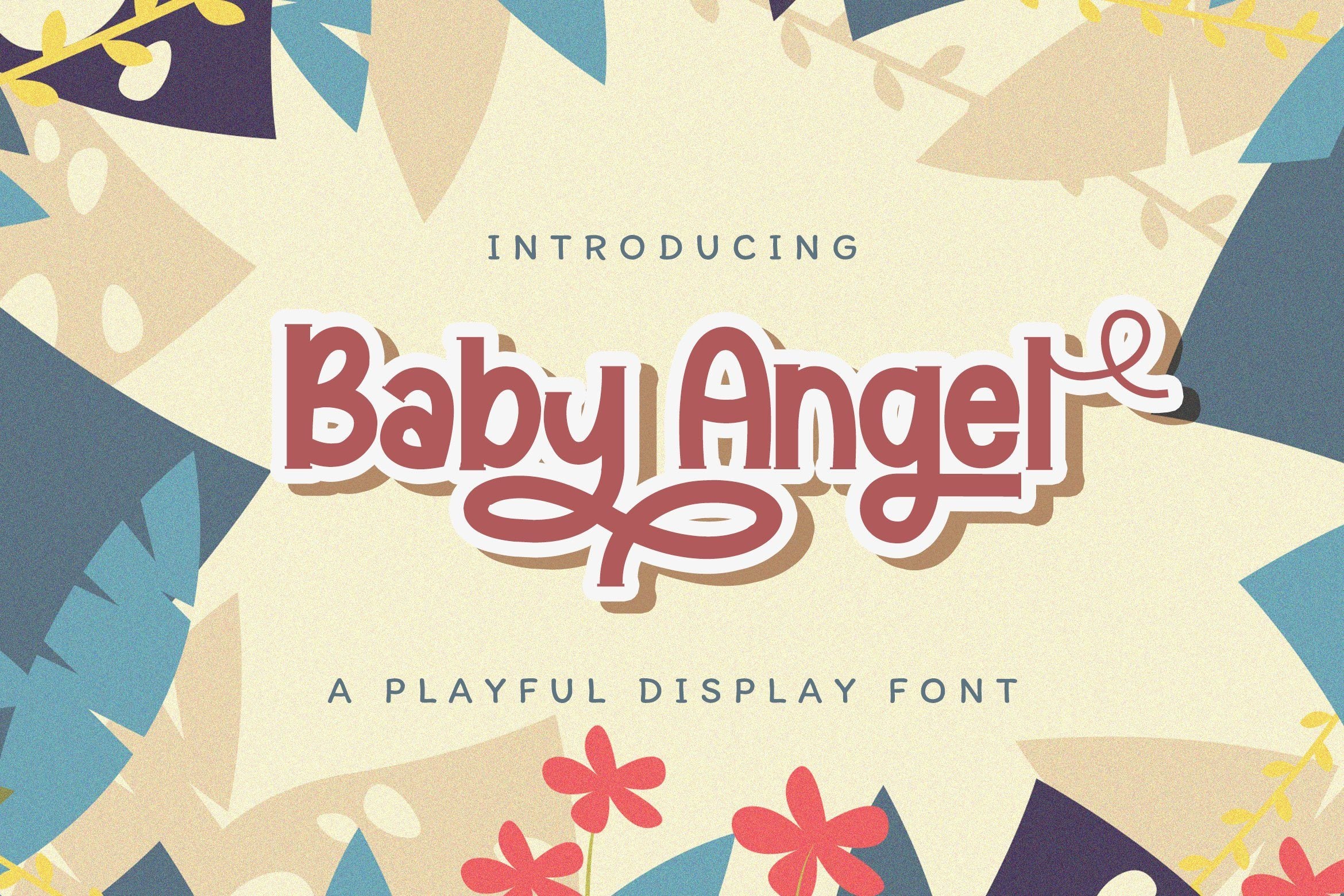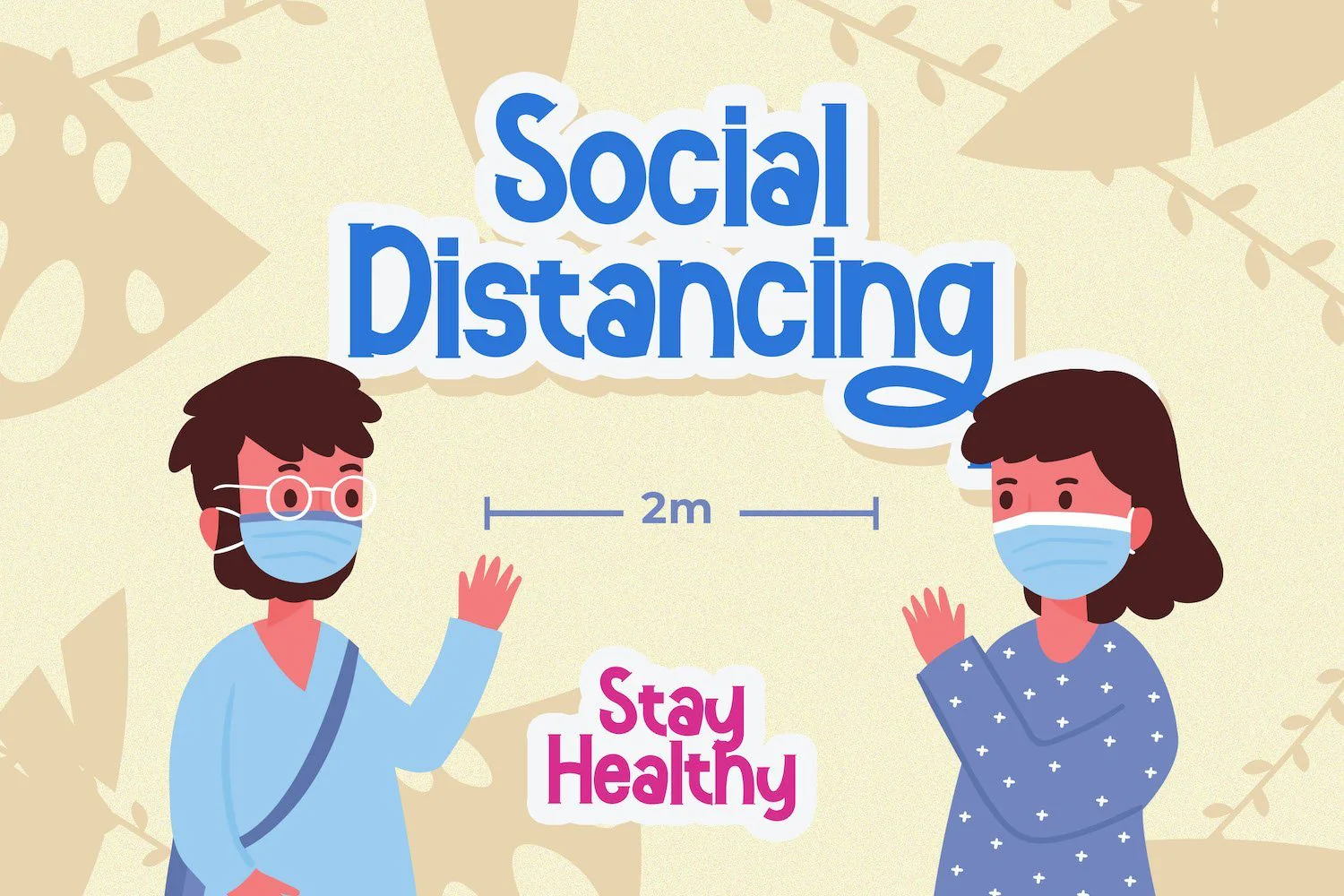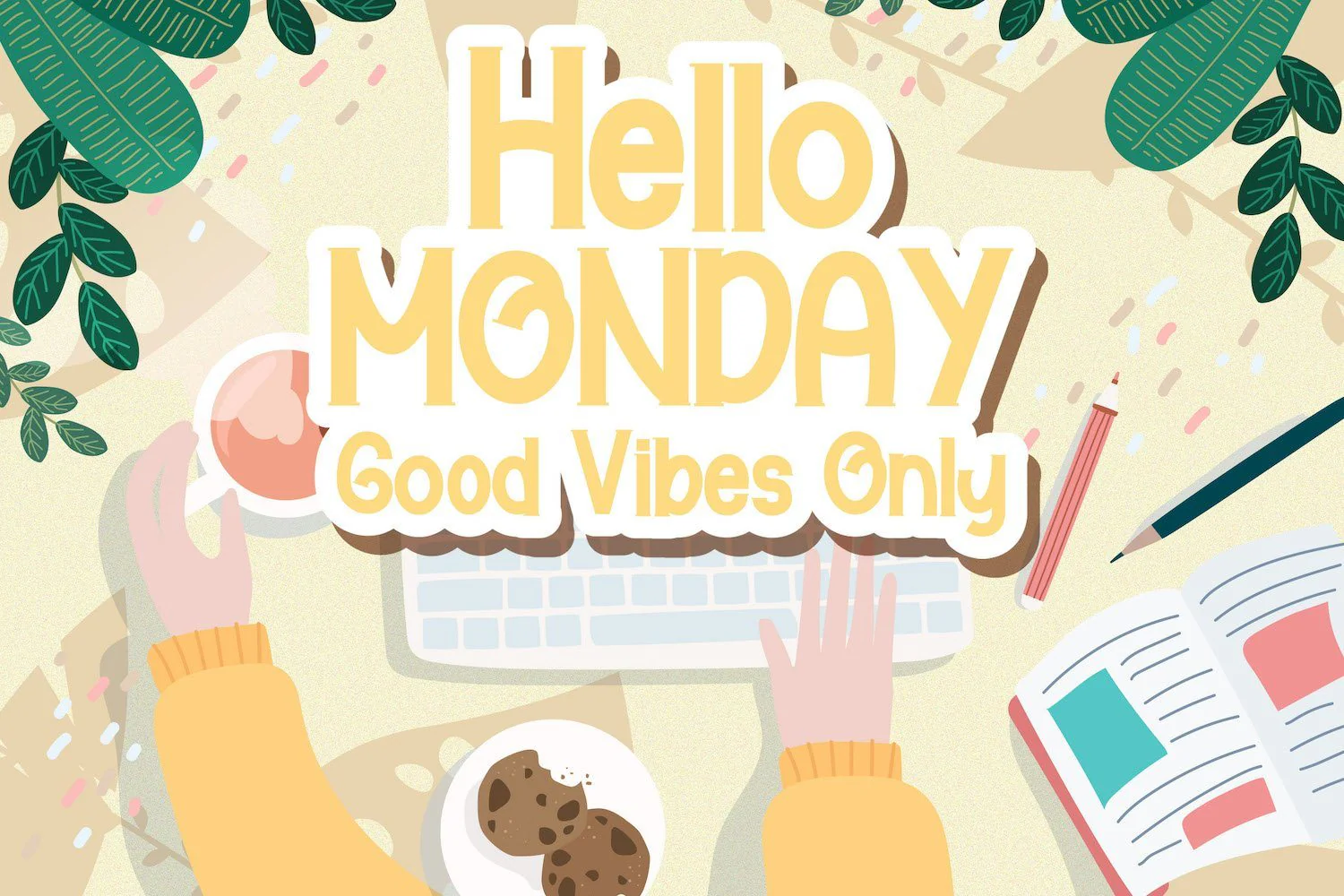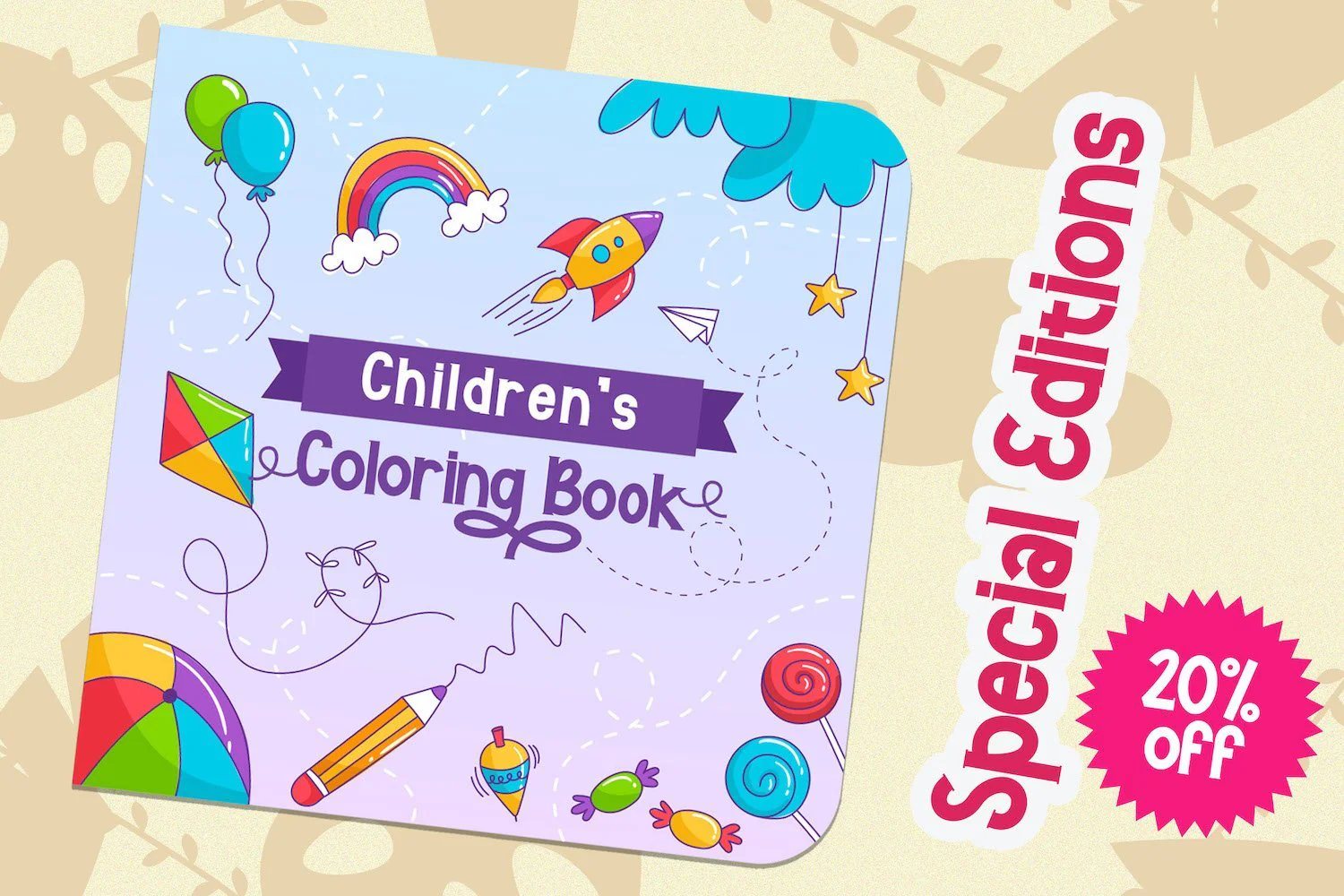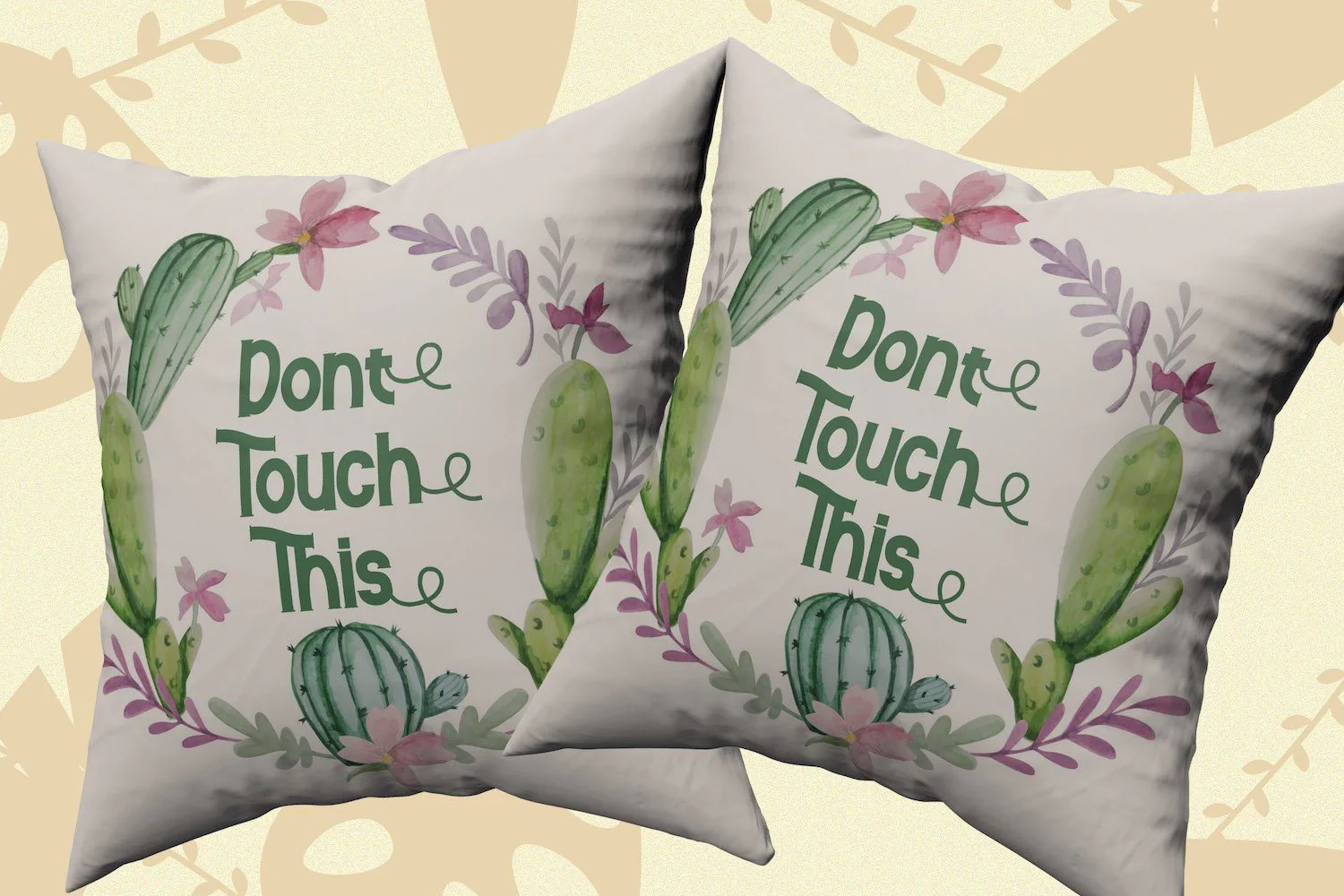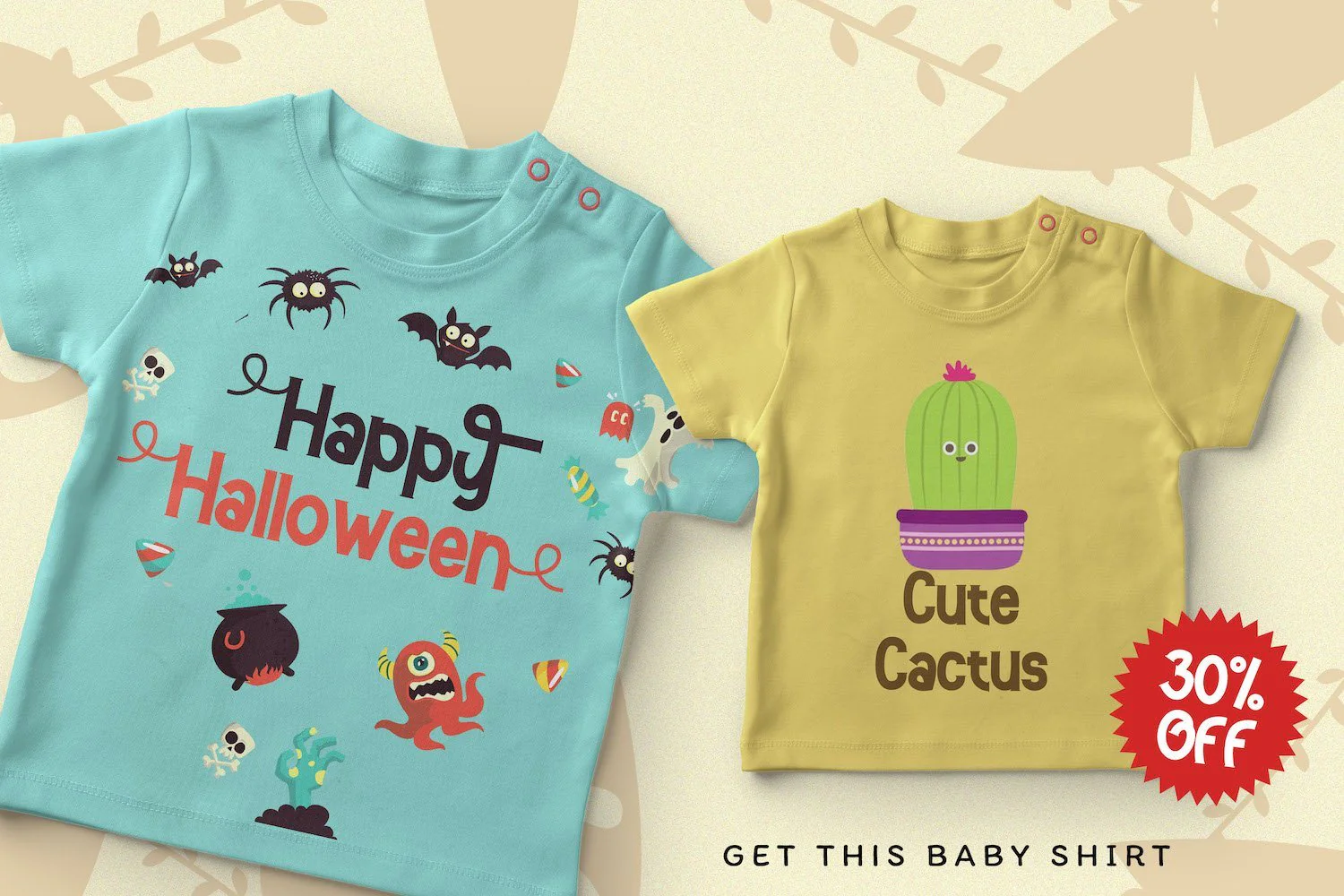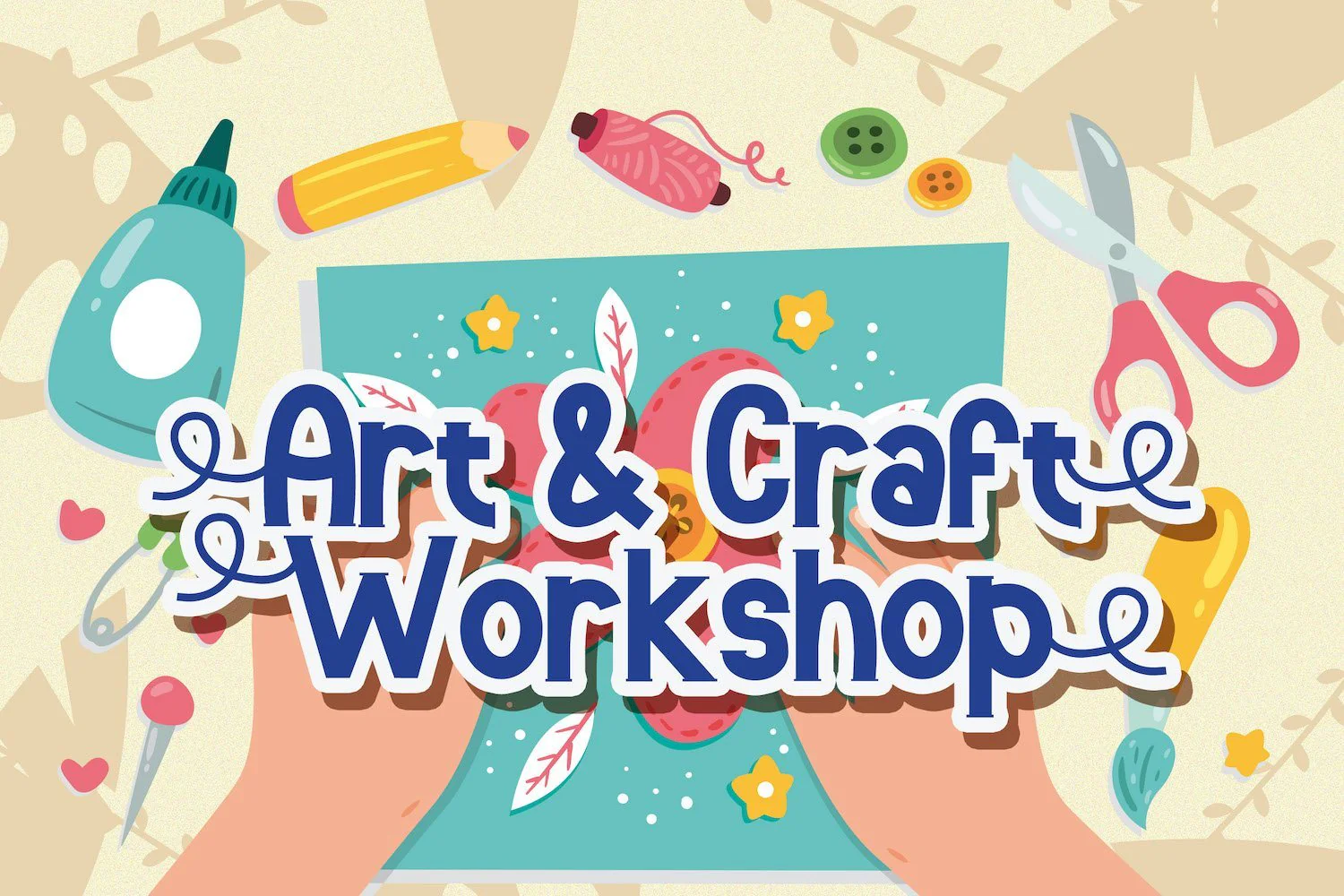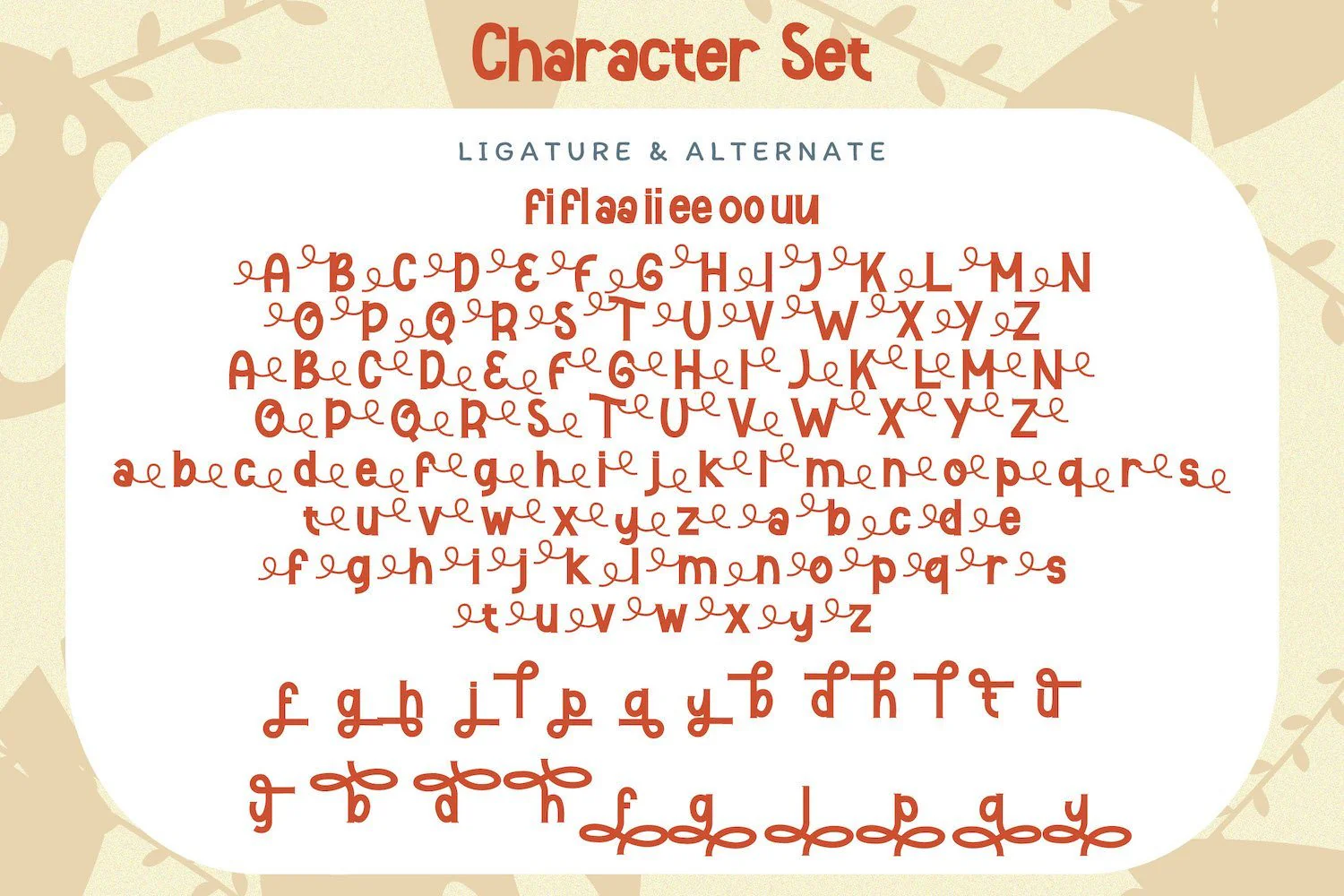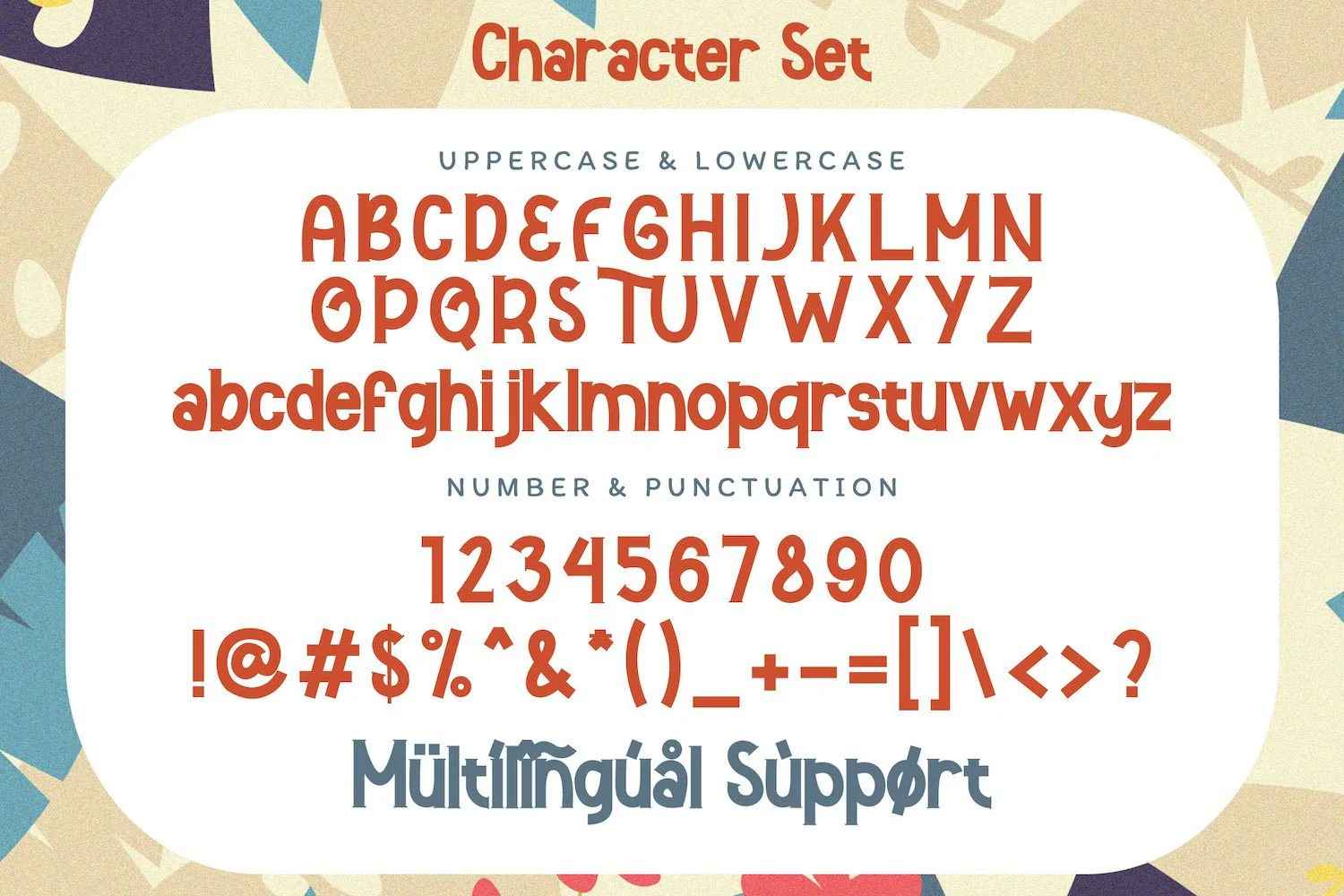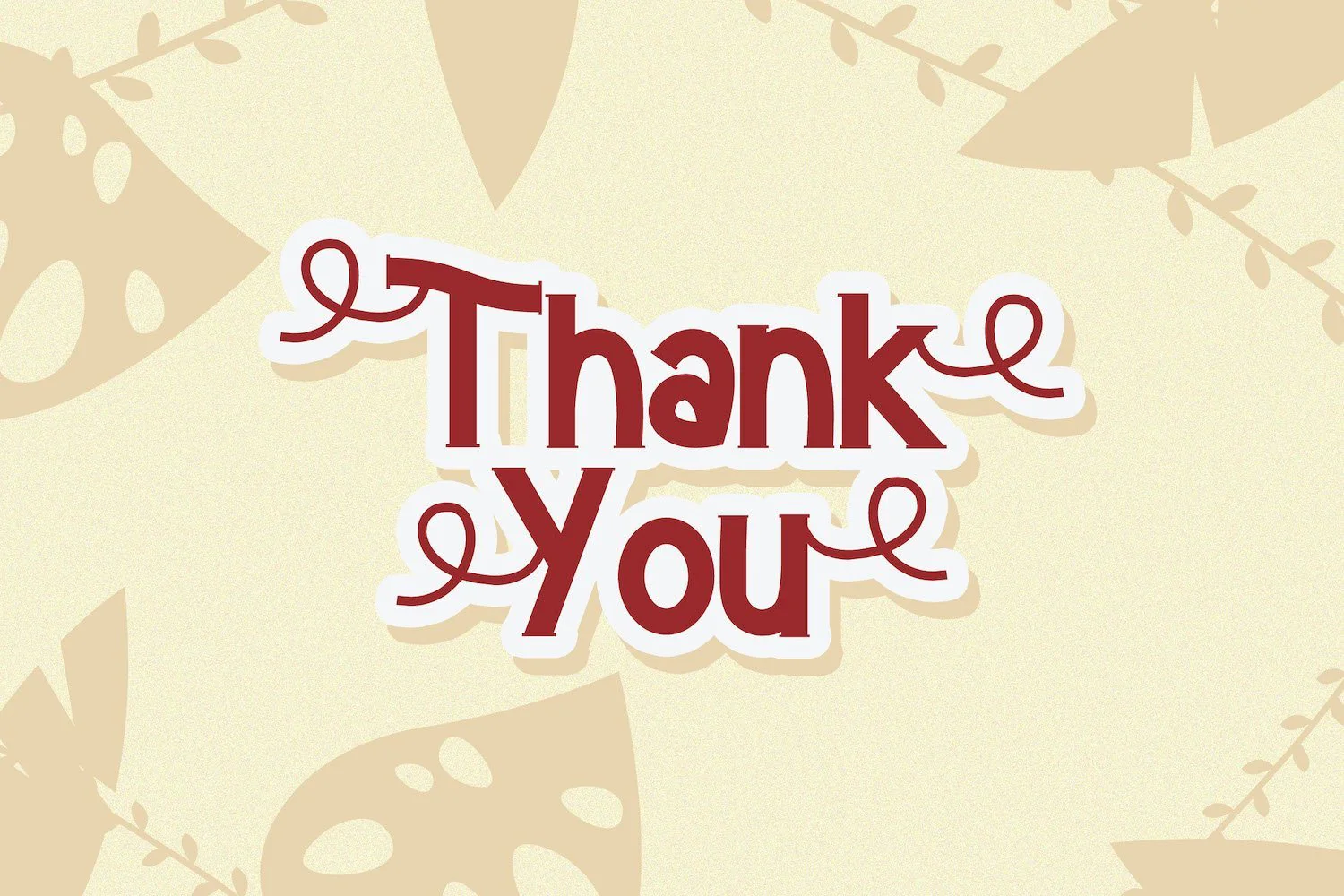
Baby Angel - Playful Display Font
Introducing Baby Angel - Playful Display Font
Baby Angel is a fun and chunky lettered display font. Playful and fresh, this font will be a hit for each of your children or school projects!
Introducing Baby Angel - Playful Display Font
Baby Angel is a fun and chunky lettered display font. Playful and fresh, this font will be a hit for each of your children or school projects!